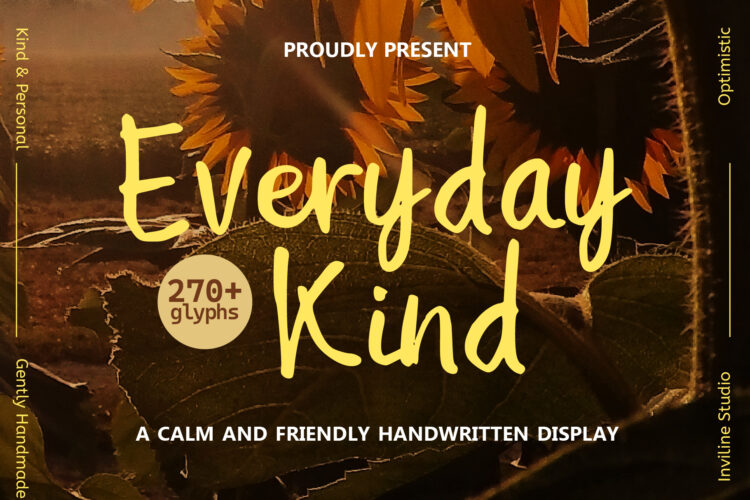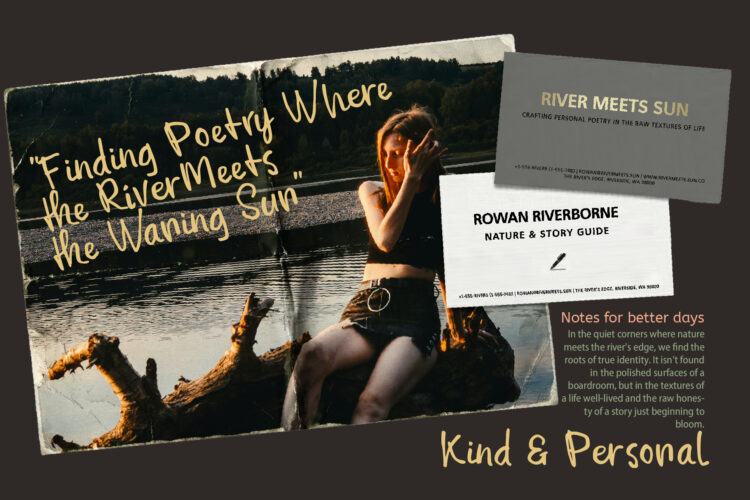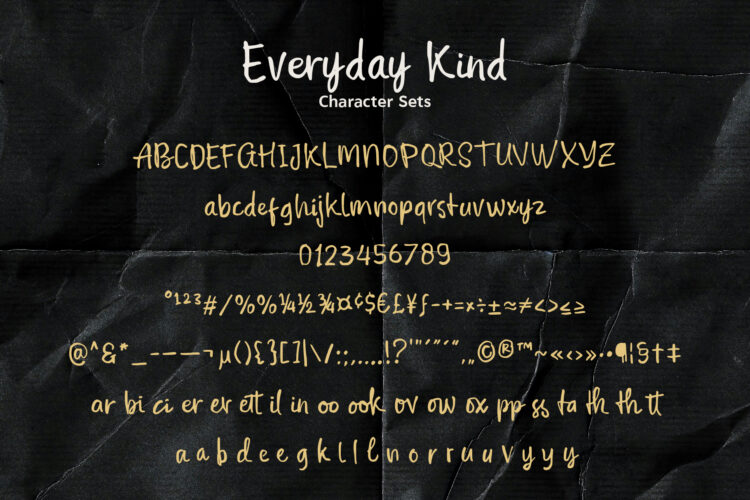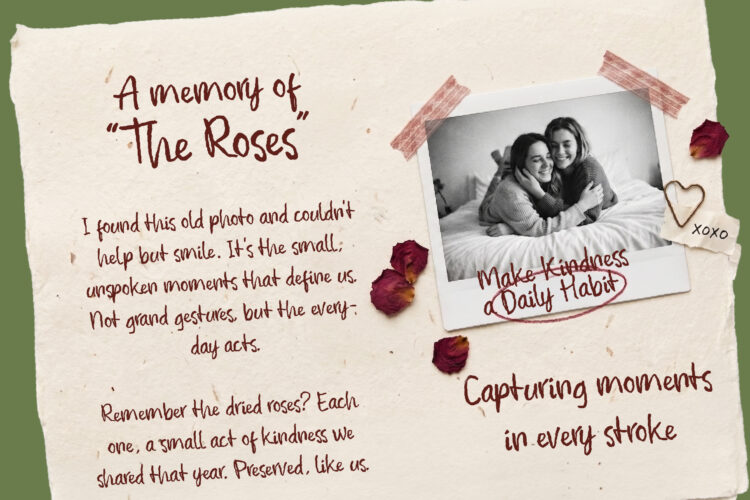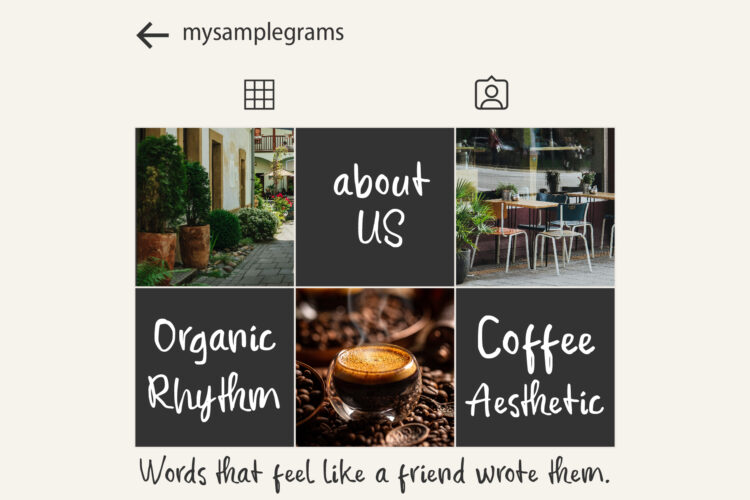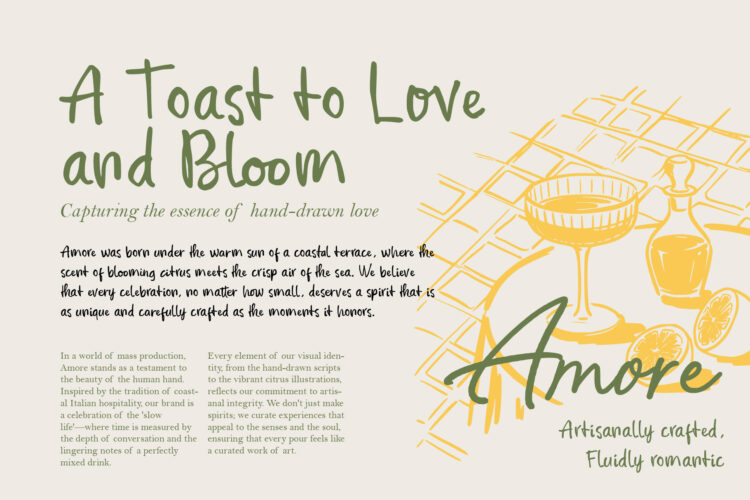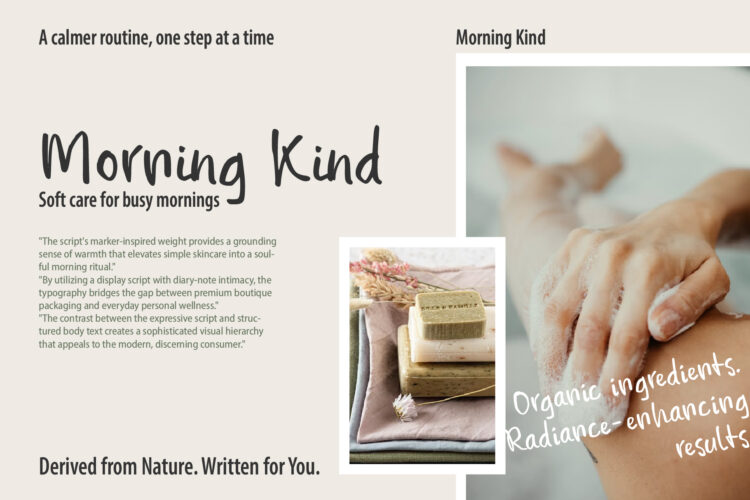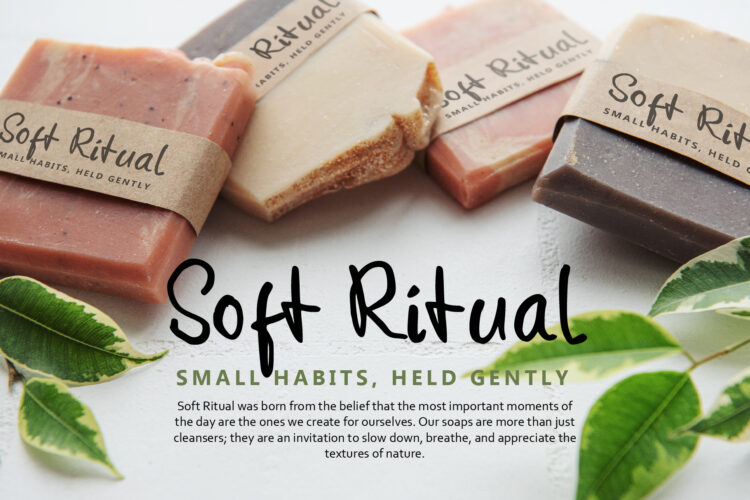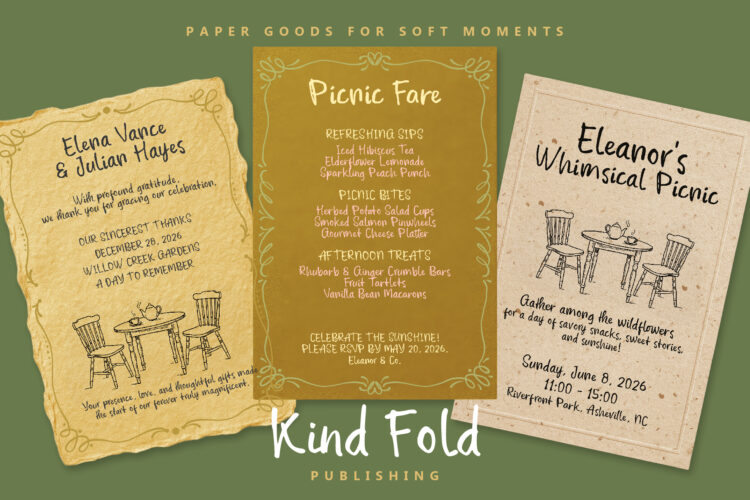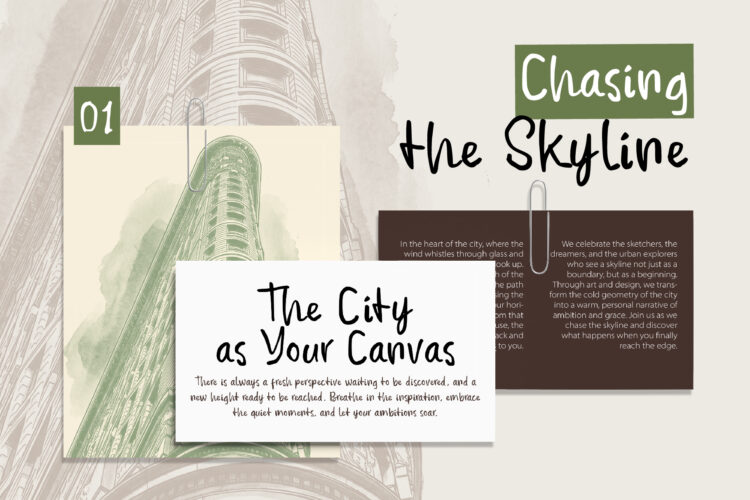
Everyday Kind font title displayed on a soft pastel background with organic textures.
Handwritten Everyday Kind font used on a natural kraft paper soap packaging design.
Full character map of Everyday Kind font featuring 270+ glyphs and ligatures
Everyday Kind - Regular
A gently handmade display font designed to bring warmth, trust, and a sincere human touch to your creative workspace.
Bring a warm hug to your designs with Everyday Kind. Created by Inviline Studio, this font was born from a desire to remove digital stiffness and replace it with a sincere, approachable demeanor. Each letterform is gently handmade to ensure your message feels like a personal conversation rather than a corporate broadcast.
• 270+ Glyphs: A comprehensive character set that covers all your creative needs.
• OpenType Magic: Includes smart ligatures and stylistic alternates to make your text look truly custom.
• Multilingual Support: Ready for global projects with extensive Latin language support.
• Boutique Branding: Ideal for logos that need to feel trustworthy and organic.
• Nursery & Kids: Soft, rounded angles make it perfect for children’s brands.
• Lifestyle Content: The “Cute and Cosy” aesthetic fits perfectly with “slow living” social media quotes and eco-friendly packaging.
Everyday Kind – Calm Handwritten Display Font